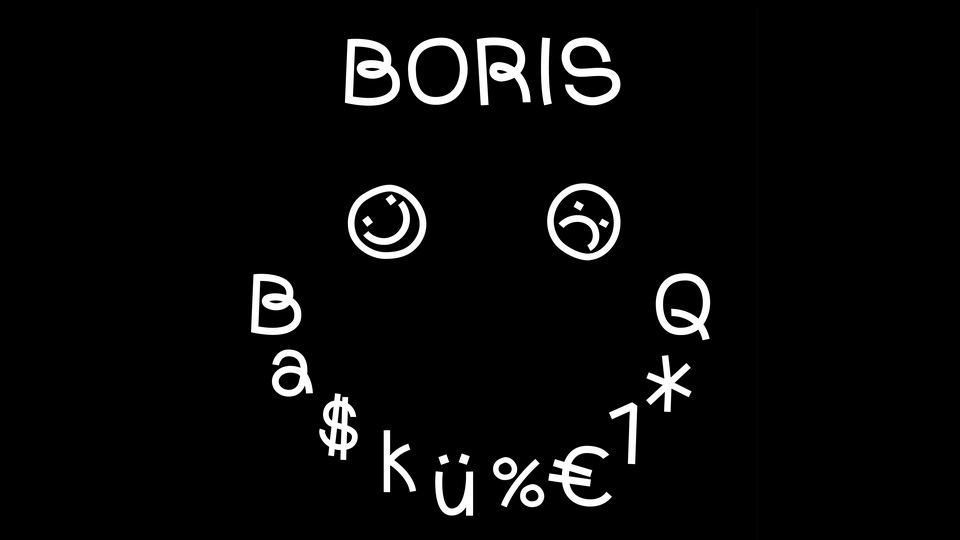
Feb 8, 2025Script & HandwrittenBoris Font Boris is a script/display typeface designed and developed for fun (and to look fun). It will be perfect for books, greeting cards, logos, posters or anything that requires a playful and happiness look! Font DetailsDesigned by: Giulia BoggioWebsiteLicense: Free for commercial use, OFL Download Boris FontFile size: 76.37 KBCreated: February 16, 2025Updated: February 16, 2025 Download Explore similar fonts Bakula Font Waloh Font Playpen Font Oregano Font Onekids Font Repeat After Me Font # Cartoon# Casual# Comic# Funny# Handwriting# Playful More fonts by Giulia BoggioGalgo Condensed FontALT Gumbo FontMilkman Font